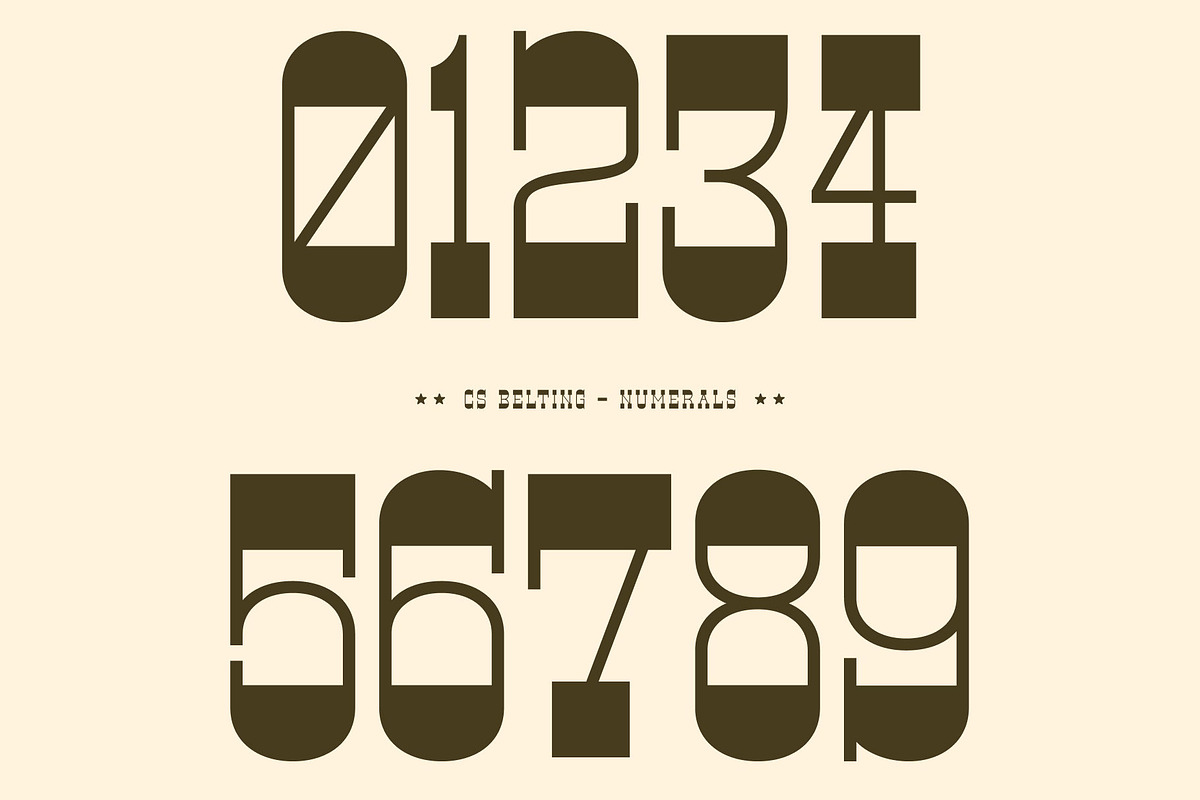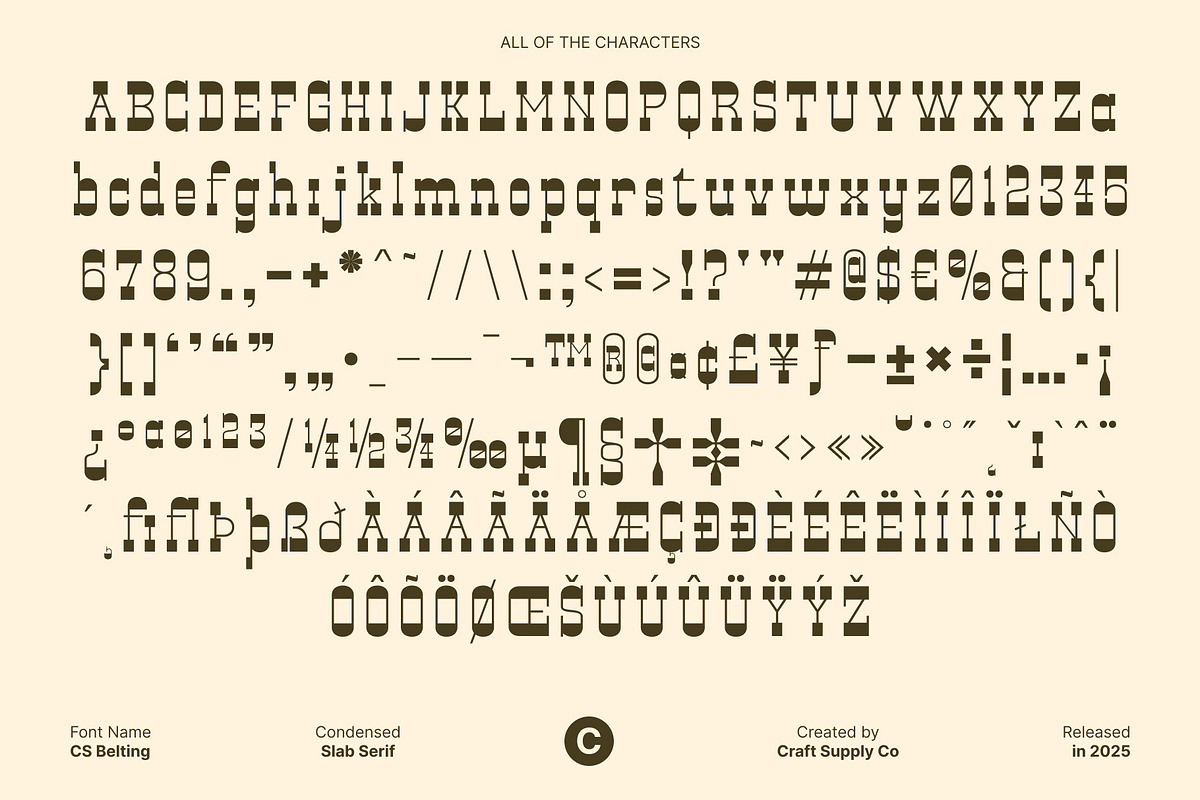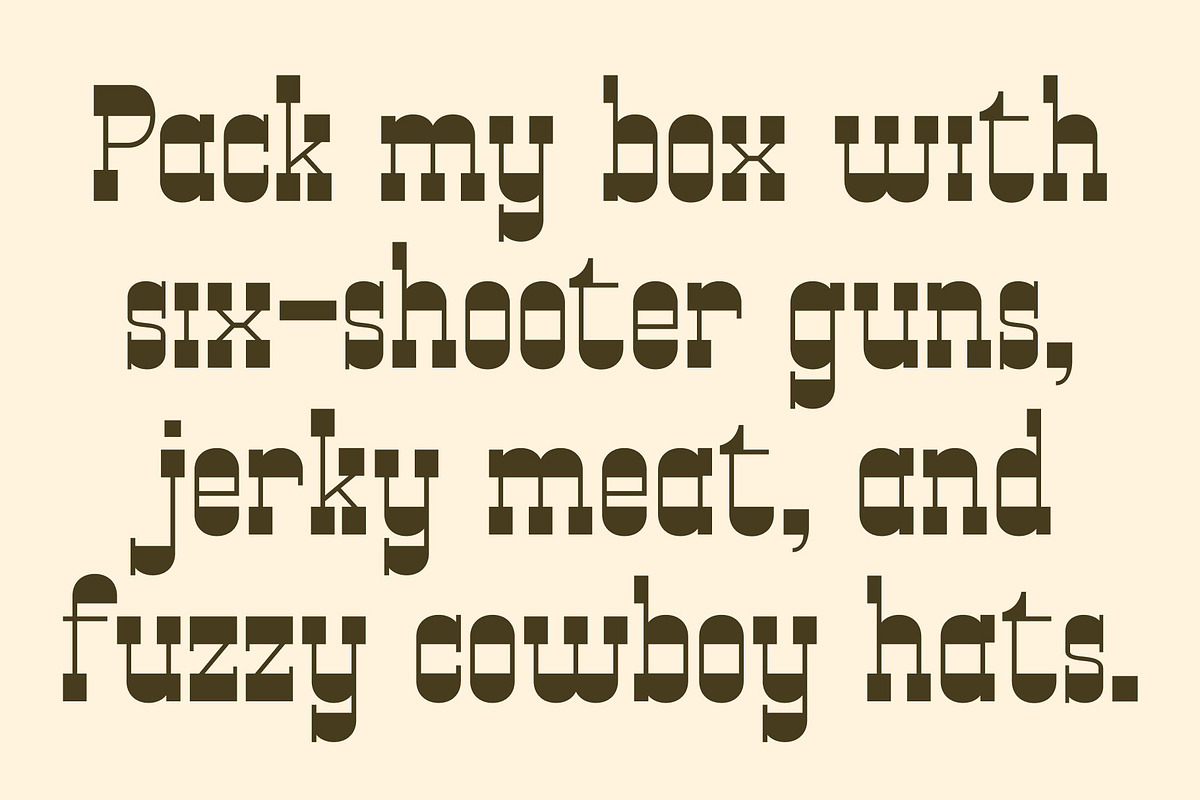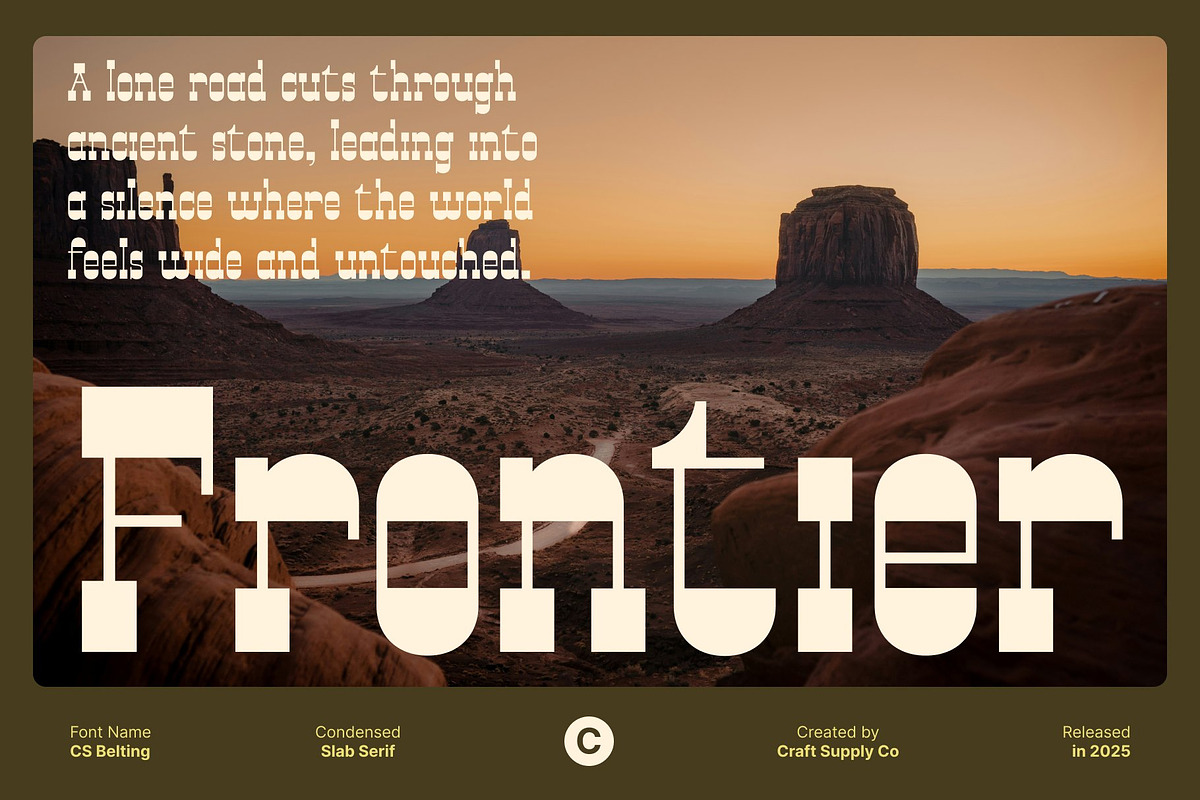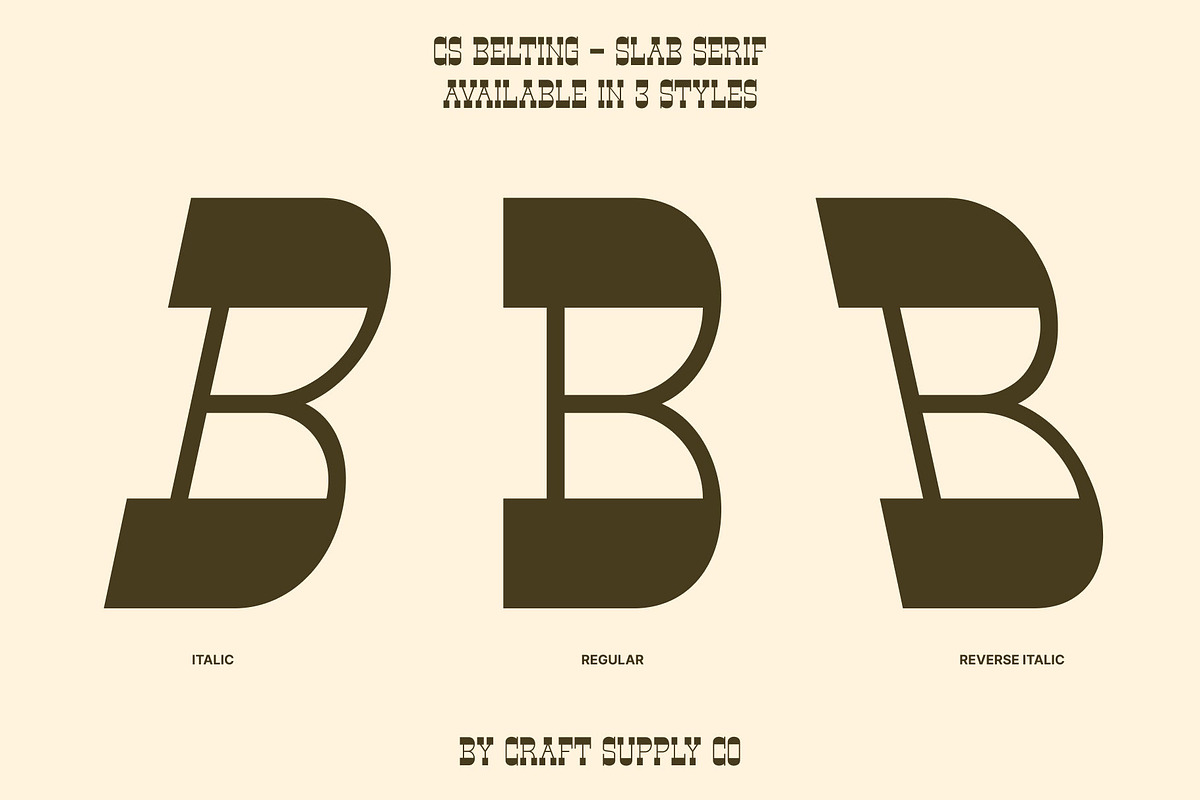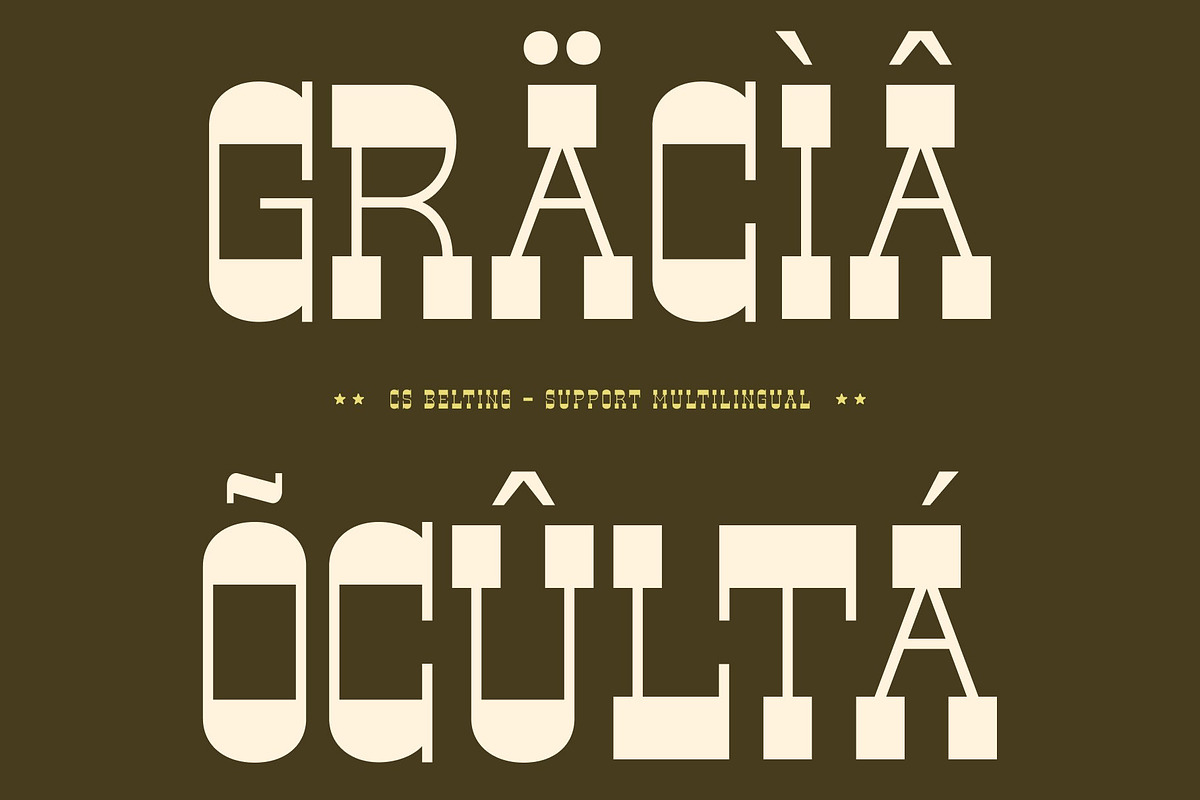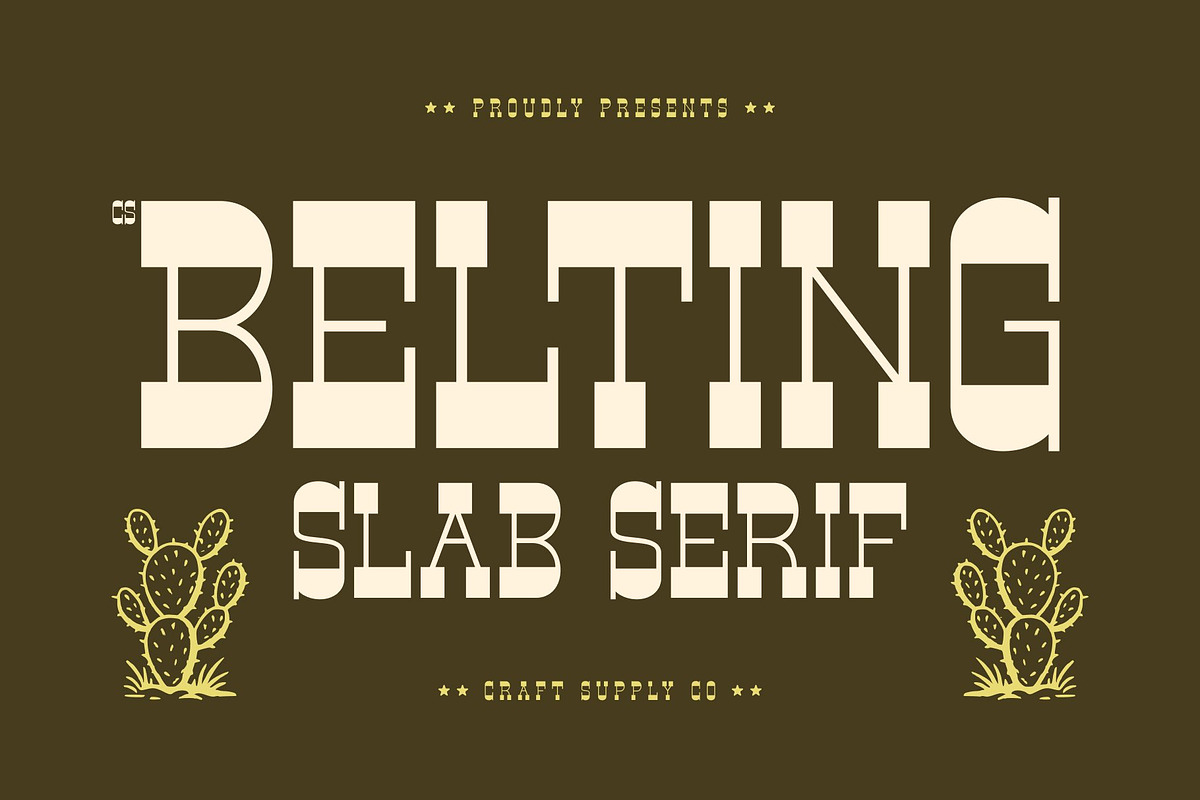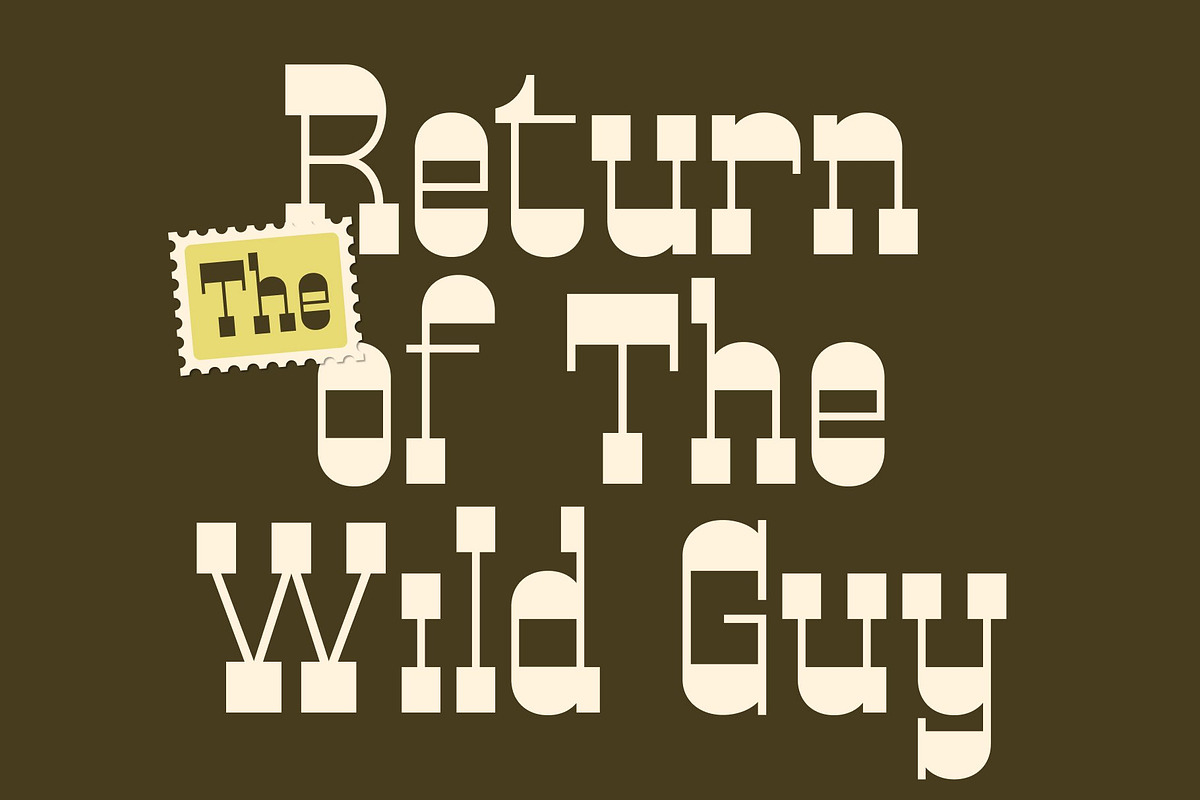
CS Belting – Slab Serif Font
CS Belting – Rugged Western Spirit in Bold Display Form
Western Display Font with Frontier Character This is a bold western display font that channels the untamed spirit of the Wild West. Inspired by classic frontier signage and rugged cowboy culture, this font delivers a strong, confident presence rooted in history and reverse contrast style. Its distinctive slab-like serifs and solid construction evoke the look of wanted posters, and handcrafted wooden lettering.
Slab Serifs with Wide, Commanding Letterforms The defining feature of this font lies in its slab-like serifs and wide letterforms, which create a sturdy and authoritative appearance. These broad proportions give the font a grounded, reliable feel, while the strong serifs reinforce its rugged personality. The generous width enhances legibility and impact, ensuring each letter stands out clearly in display.
Rugged Style with Cowboy Grit This font captures the raw energy of frontier life through its rough yet controlled design. The font carries a sense of toughness and authenticity, reflecting the grit, independence, and resilience associated with cowboy culture. Confident stance make it ideal for designs that aim to feel adventurous, masculine, or nostalgic, while still maintaining a clean and usable display form.
Perfect for Posters, Branding, and Vintage Themes Designed for high-impact visual applications, this font excels in posters, branding, logos, packaging, and vintage-themed projects. Its western flair makes it especially suitable for rodeo events, outdoor brands, whiskey labels, apparel, movie titles, and heritage-inspired designs.
- CS Belting Regular
- CS Belting Italic
- CS Belting Reverse Italic